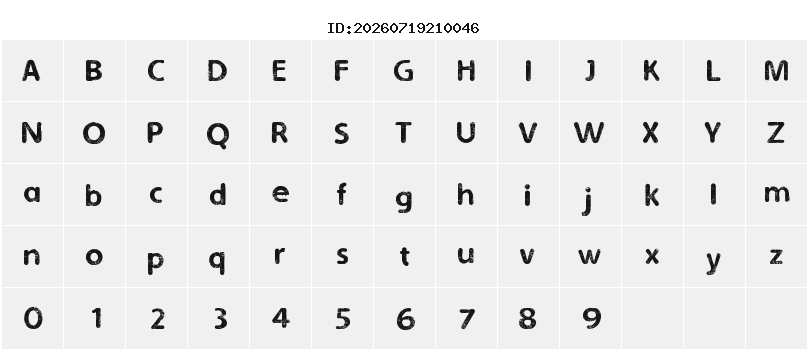
• Font Name: Eroded 2 Much
• Manufacturer: Galdino Otten
About Eroded 2 Much.ttf
Eroded 2 Much.ttf is a modern, elegant sans-serif font designed for ultimate readability and visual harmony. Perfect for branding, headlines, web design, and print materials.